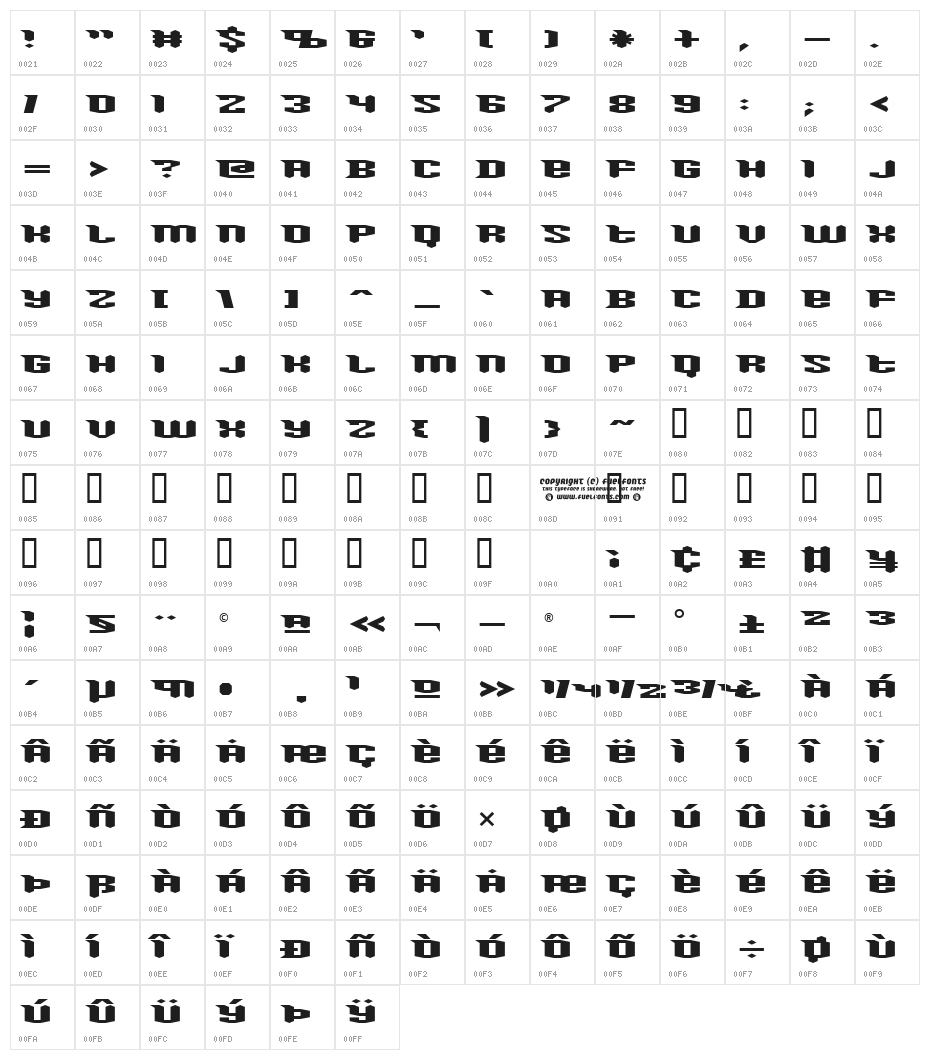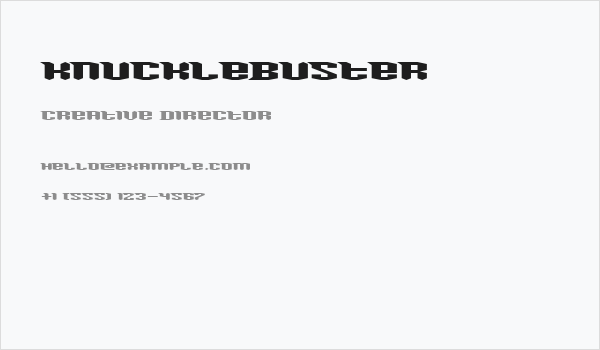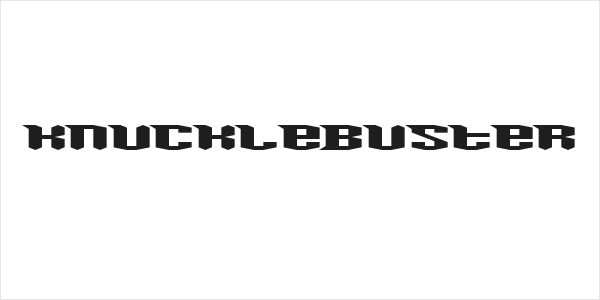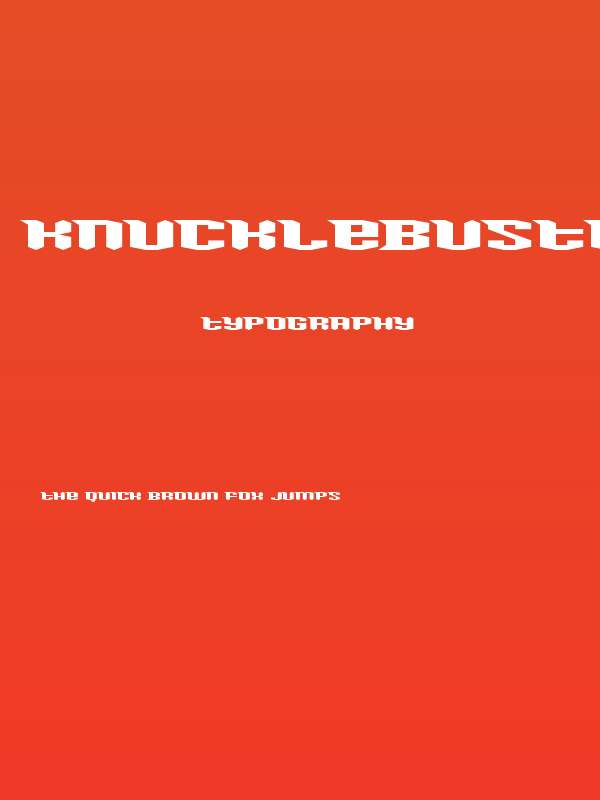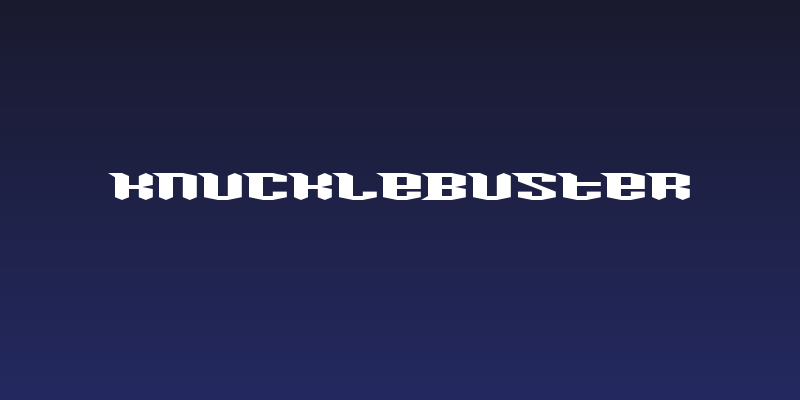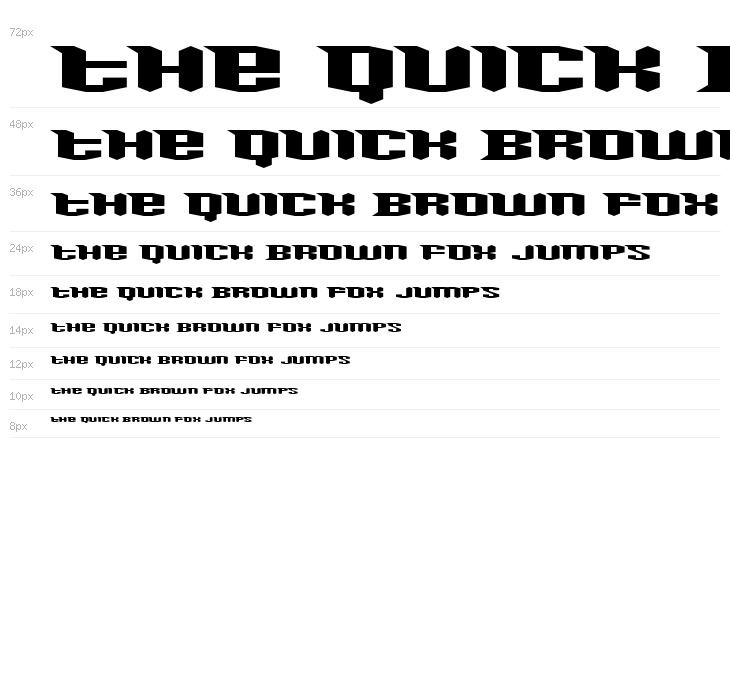
Knucklebuster Font
Knucklebuster Description
This font features a bold and aggressive design with sharp, angular edges and a heavy weight. The characters are tightly spaced, creating a compact and impactful appearance. The uppercase and lowercase letters maintain a consistent style, with a strong geometric influence. The numbers and special characters follow the same bold and angular design, ensuring uniformity across all elements. This font's distinct style makes it stand out, ideal for projects that require a strong visual presence.